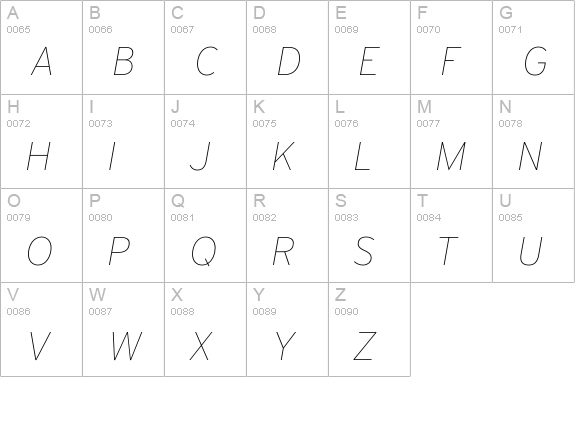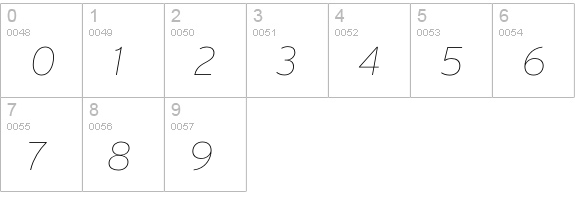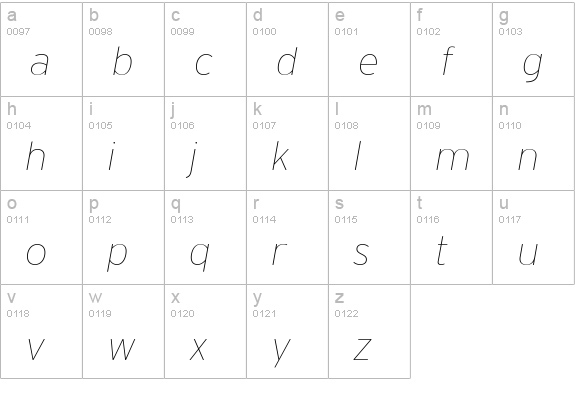
Interstate Thin Italic Font Details
Interstate Thin Italic is a delicate, low-contrast, italic variant in the Interstate typeface family \xE2\x80\x94 well suited to fashion editorial, minimal branding, and high-contrast display.
Introducing Interstate Thin Italic font, a sleek and modern typeface that effortlessly combines elegance with a touch of sophistication. Its thin and slanted design adds a sense of dynamism to any text, making it perfect for projects that require a contemporary and stylish look. This font is the epitome of versatility, as it can be used for a wide range of design purposes. Whether you are creating a logo, designing a website, or crafting a professional document, Interstate Thin Italic font will add a touch of finesse to your work. The clean and legible letterforms of Interstate Thin Italic font ensure that your message is conveyed with utmost clarity. Each character is meticulously crafted, resulting in a seamless and harmonious visual experience. The italicized style adds a subtle emphasis to your text, making it stand out without overpowering the overall design. One of the best aspects of Interstate Thin Italic font is that it is freely available to download at FontsMarket.com. This means that you can easily access this font and incorporate it into your projects without any hassle. Whether you are a professional designer or a hobbyist, this font is a valuable addition to your typography collection. With its sleek lines, modern aesthetic, and freely available download, Interstate Thin Italic font is the perfect choice for those who seek to elevate their designs. Experience the power of this font and transform your projects into visual masterpieces.